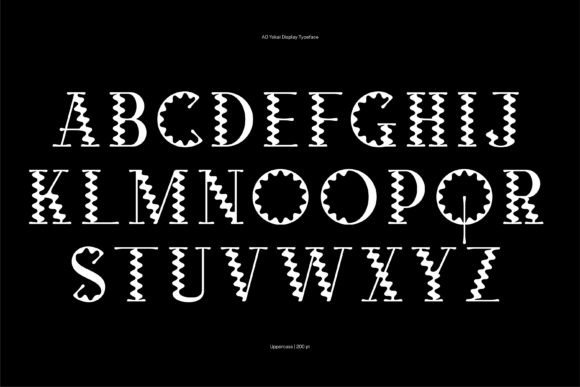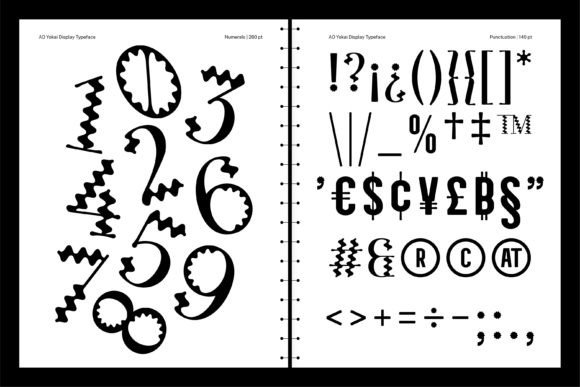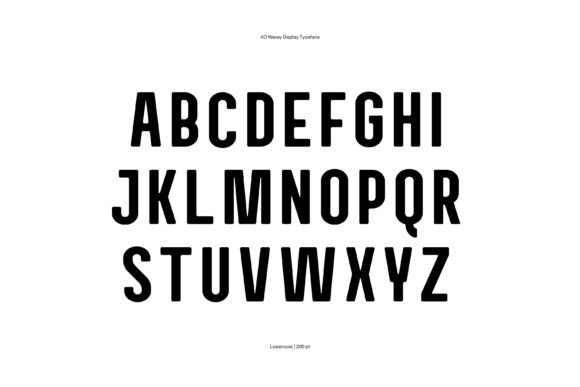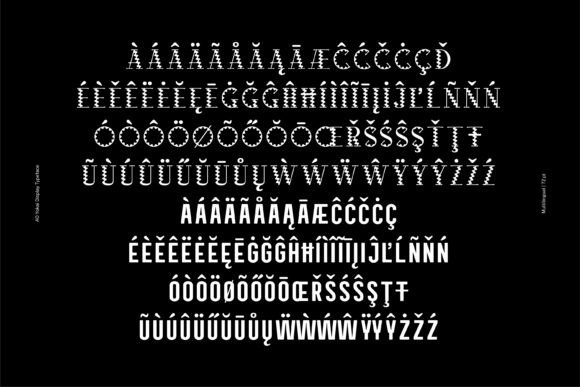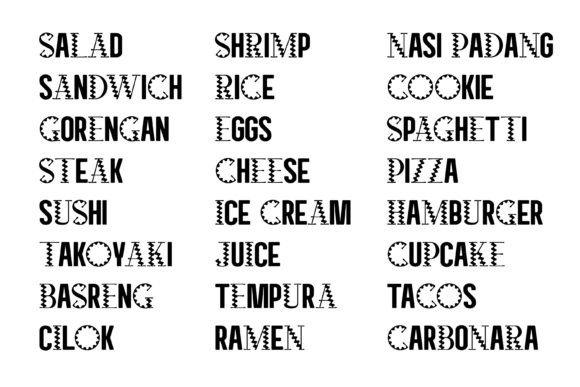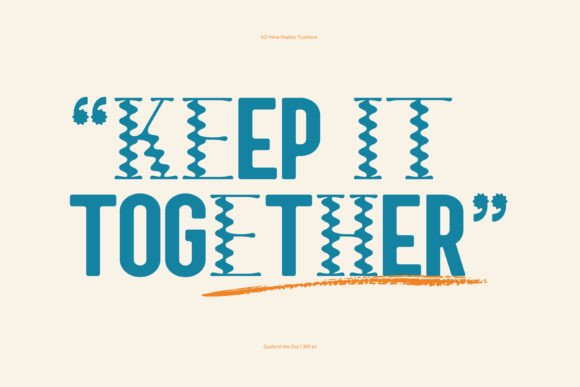
Introducing AO Yokai Font: A Revolutionary Two-in-One Display Typeface
In the world of design, fonts play a crucial role in bringing a creative vision to life. A unique and captivating font can elevate a design project from ordinary to extraordinary. This is where AO Yokai Font comes in – a game-changing, two-in-one display typeface that combines two different font styles to create a distinctive look. In this article, we’ll dive into the features and benefits of AO Yokai Font, and explore how it can become an invaluable asset to your design library.
The Concept Behind AO Yokai Font
AO Yokai Font is an experimental fusion of two distinct font styles, carefully crafted to produce a one-of-a-kind visual effect. This innovative approach allows designers to add an extra layer of creativity to their work, setting it apart from the rest. The font’s unique blend of styles makes it an excellent choice for designers seeking to create a lasting impression.
Key Features of AO Yokai Font
- Two-in-One Font Style: AO Yokai Font offers two font styles in one, providing designers with unparalleled flexibility and creative freedom.
- Unique Visual Effect: The combination of two font styles creates a captivating visual effect that is sure to grab attention.
- Versatility: AO Yokai Font can be used for a wide range of design projects, from branding and advertising to packaging and digital media.
Benefits of Using AO Yokai Font
AO Yokai Font offers numerous benefits to designers, including:
- Elevate Your Designs: With AO Yokai Font, you can add a touch of uniqueness to your designs, taking them to the next level.
- Stand Out from the Crowd: The font’s distinctive style ensures that your designs will stand out in a crowded market.
- Time-Saving: AO Yokai Font’s versatility and ease of use save designers time and effort, allowing them to focus on other creative aspects of their project.
- Cost-Effective: With AO Yokai Font, you get two font styles in one, making it a cost-effective solution for your design needs.
Who Can Benefit from AO Yokai Font?
AO Yokai Font is an excellent addition to any designer’s library, particularly:
- Graphic Designers: AO Yokai Font is perfect for graphic designers seeking to create eye-catching branding, advertising, and marketing materials.
- Digital Designers: Digital designers can use AO Yokai Font to create stunning digital media, such as website headers, social media graphics, and mobile app interfaces.
- Crafters and Makers: Crafters and makers can use AO Yokai Font to add a personal touch to their handmade products, such as labels, packaging, and promotional materials.
AO Yokai Font is a revolutionary two-in-one display typeface that offers designers a unique and creative way to elevate their designs. With its versatility, ease of use, and cost-effectiveness, AO Yokai Font is an incredible asset to any design library. Whether you’re a graphic designer, digital designer, or crafter, AO Yokai Font is sure to become a go-to font for your design projects. Experience the power of AO Yokai Font and take your designs to new heights.